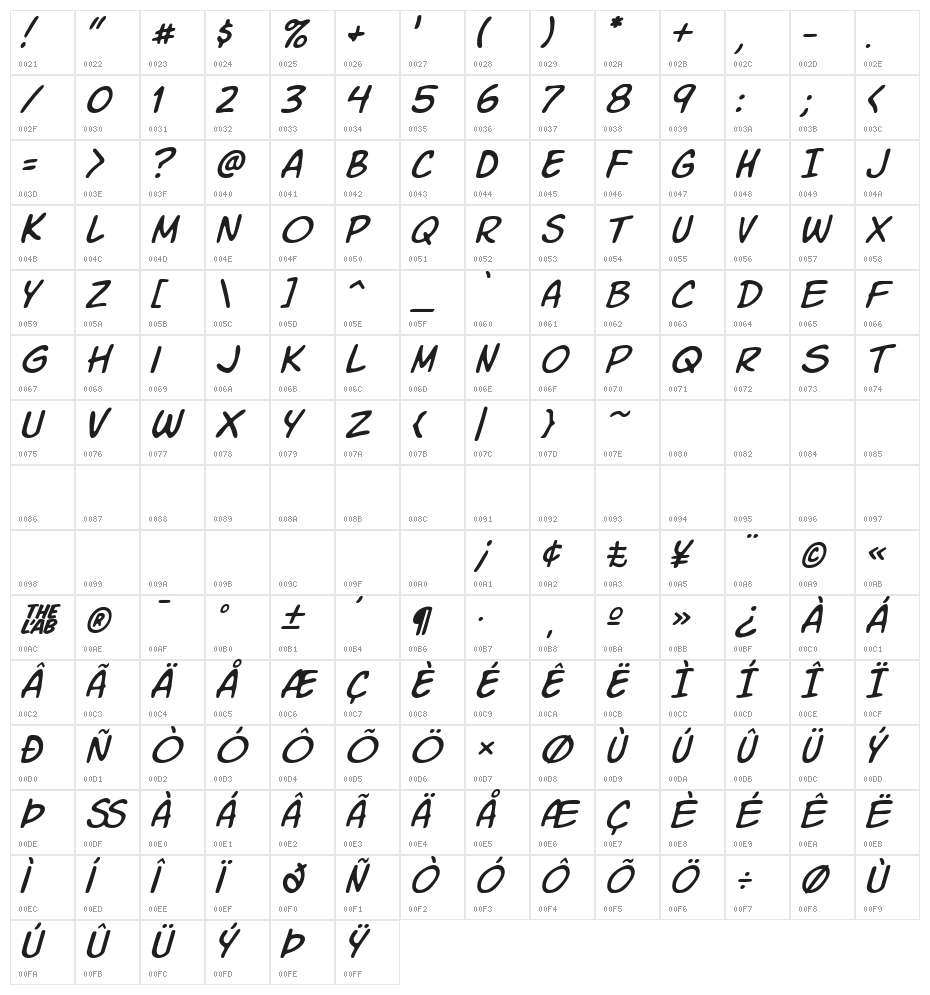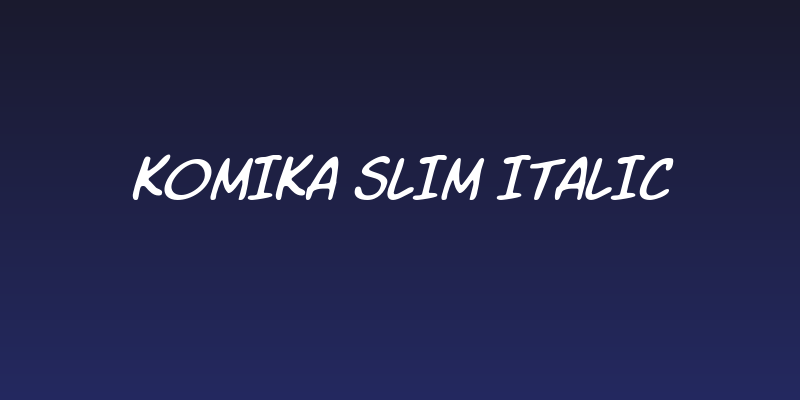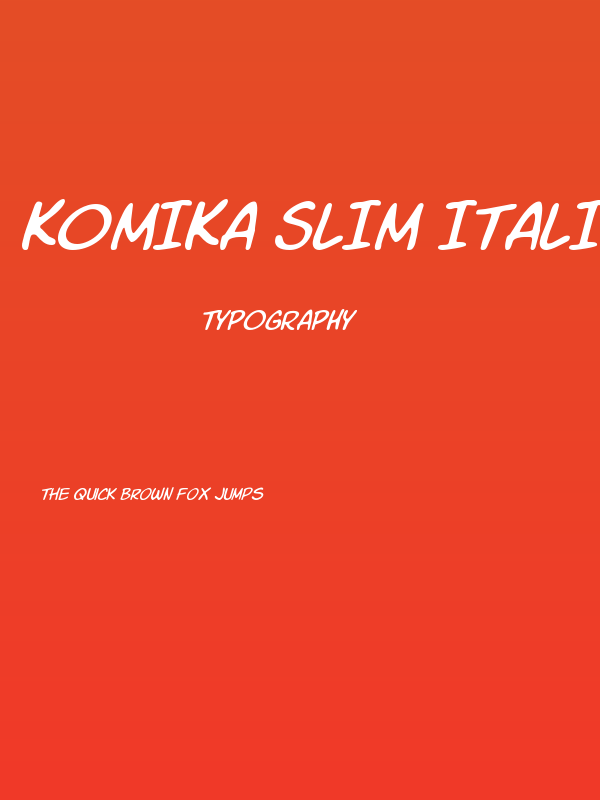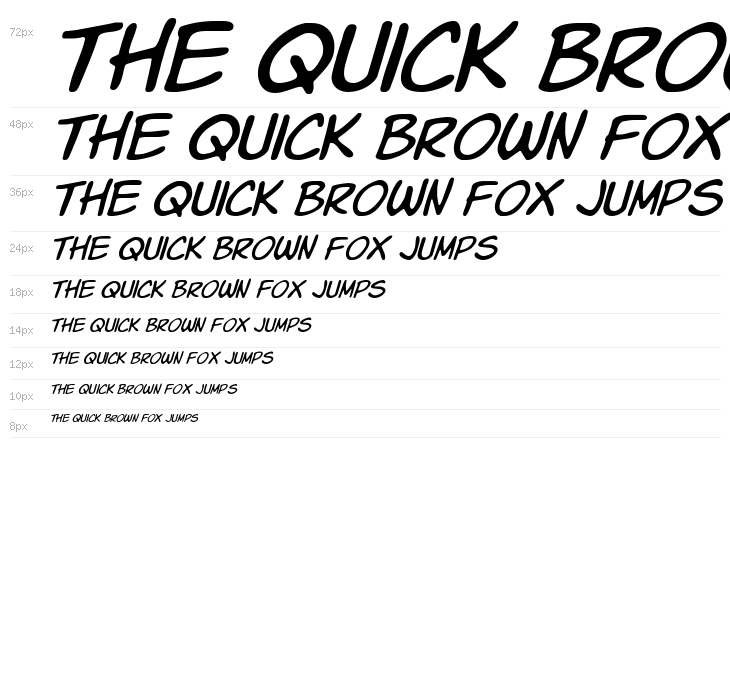
Komika Slim Italic Font
Komika Slim Italic Description
This font features a playful and dynamic style with a handwritten appearance. The characters are slightly slanted, giving it an italicized look, and the strokes are smooth and flowing. The letters are well-rounded with a casual, informal vibe, making it suitable for creative and fun projects. The numbers and special characters maintain the same lively style, ensuring consistency across all elements.
| Proposed Projects | Ideal for comic books, children's books, playful branding, and casual invitations. |